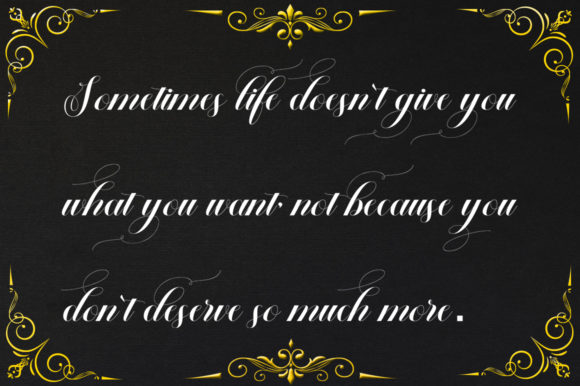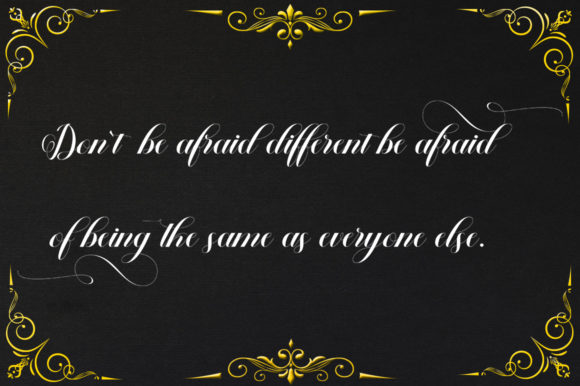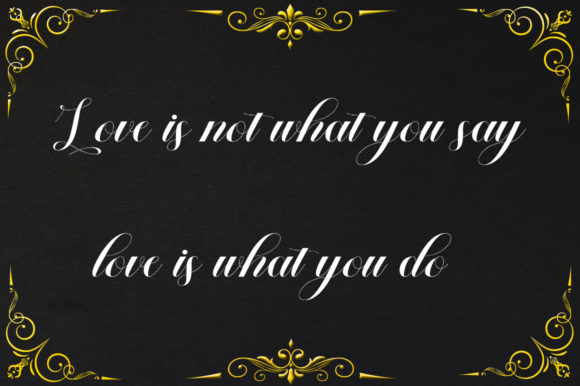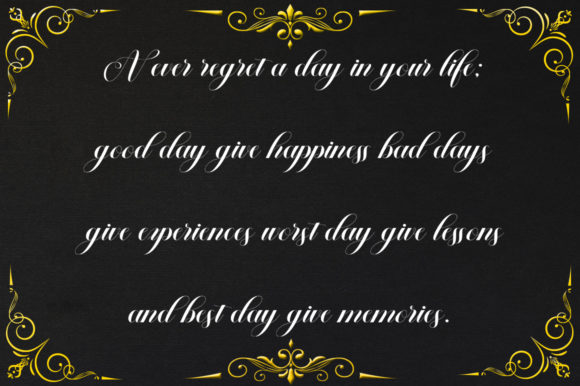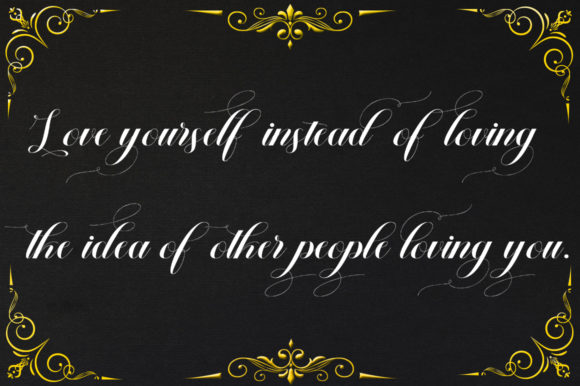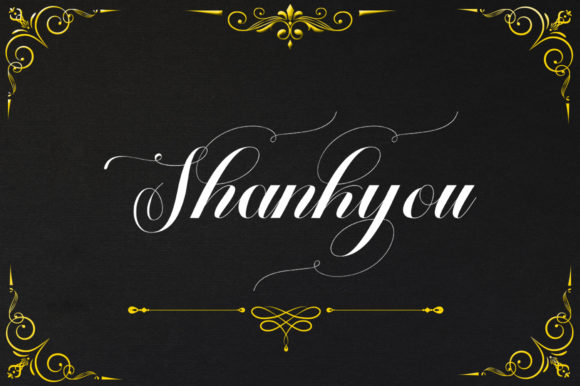
The Elegance of High Quality Font: A Designer’s New Best Friend
I’ll never forget the time I was working on a wedding invitation project, and my client asked for a font that exuded elegance and sophistication. I scoured the internet, tried out countless fonts, but nothing seemed quite right. That was until I stumbled upon High Quality font. It was love at first sight! 💕
High Quality is an elegant and flowing handwritten font that maintains its classy calligraphic influences while feeling contemporary and fresh. It’s perfect for designers, crafters, and creative hobbyists looking to add a touch of luxury to their projects.
- ✨ Elegant and flowing script with a sophisticated feel
- 💫 Beautifully crafted with attention to detail
- 🎨 Versatile and suitable for a wide range of projects
While High Quality font is exceptional, there are a few minor things to keep in mind:
- 🤔 Some characters may not work well in all contexts, such as all-caps headings
- ⚠️ Limited availability of certain OpenType features in certain software
The Story Behind High Quality Font
High Quality font was designed with the intention of creating a beautiful, elegant script that would evoke the feeling of luxury and sophistication. The designer aimed to craft a font that would be both classic and modern, with a unique character that would stand out in any design.
| Font Name | High Quality Font |
| Author | Ws Studio |
Q: What type of projects is High Quality font best suited for?
A: High Quality font is versatile and can be used for a wide range of projects, including weddings, luxury brands, business branding, and creative designs.
Q: Does High Quality font support OpenType features?
A: Yes, High Quality font supports various OpenType features, such as ligatures, stylistic alternates, and glyphs, which can be accessed in compatible software.
Q: Is High Quality font suitable for body text?
A: While High Quality font is beautiful, it’s best suited for headings and titles. For body text, a more traditional font may be more readable.